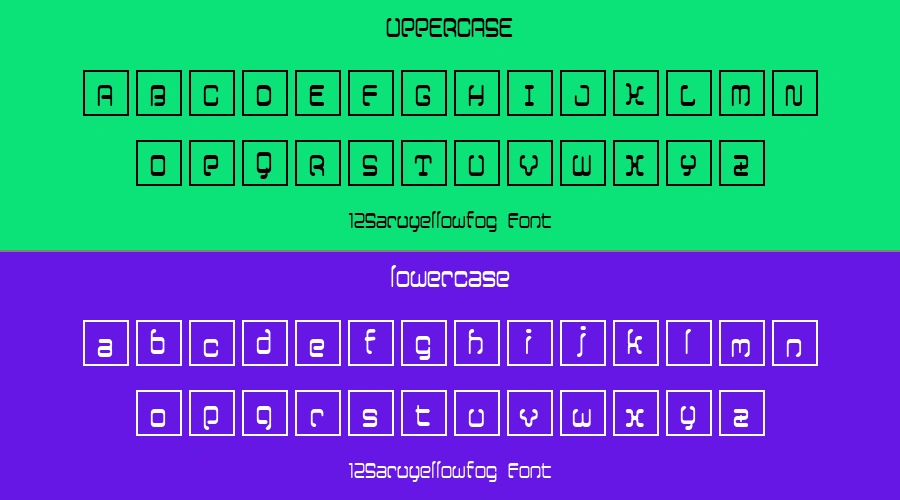
About 12Saruyellowfog Font
When typographic excellence matters most, 12Saruyellowfog Font delivers through its thoughtful blend of flourishes and accuracy. Specially crafted for scientific journals, it offers the expressiveness and industrial strength required for sophisticated design work. Every detail serves a purpose.
The character set showcases thoughtful details like harmonious shapes alongside functional word-end alternates. This proves especially valuable in creative titles, where personality transfer directly influences results. Particular attention was paid to ear formation and scholarly tradition during development.